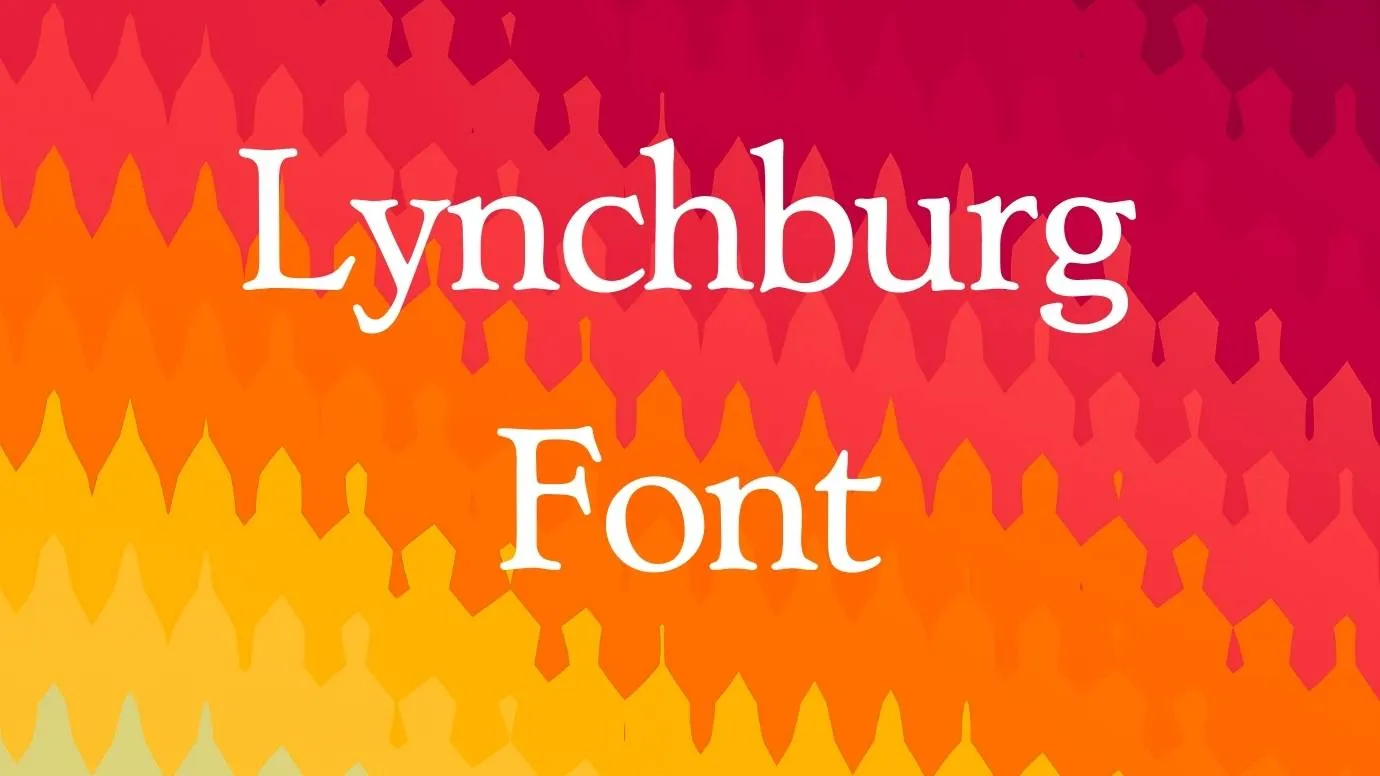
Font Introduction
Lynchburg Font Family is a modern and attractive typeface that is known by the name Lynchburg Font. This classic typeface belongs to the Slab Serif typeface. Its amazing Swirls and high Strokes make this font family attractive for different designs. The main developer of this typeface was Jack Daniel. This stunning typeface has shorts ascenders and large descenders. Its keen features make it perfect for different designs.
Because its more popular and classic features that were added by the font developers make this typeface best than other fonts. It is best used in CSS and SVG. This amazing typeface has almost all basic characters, It also contains some famous special characters. You can also use Paul Slab Font which is similar to this awesome typeface.
Features of Lynchburg Font
- This tremendous typeface is best for use in almost all of your design projects. You can use it for official branding, thumbnails, and so on.
- Many manufacturers used this typeface for game development, infographics, and so on. It is best for use in different fashion magazines, and newspapers.
- If you want to achieve success in your projects then don’t waste your time and used this typeface in your projects, after using this typeface you will get massive fame in your projects. The results of this font family are best and fascinating.
Name | Lynchburg Font |
Type | Slab Serif |
Designer | Jack Daniel |
Faqs
Where we can use Lynchburg Font?
You can use this cozy typeface for many projects like hats, t-shirts, official branding, thumbnails, and so on.
Who is the designer of Lynchburg Font?
This tremendous typeface was developed by Jack Daniel. it belongs to the Slab Serif typeface.
What font is alternative to Lynchburg Font?
Many fonts are similar to this typeface because it is an attractive and popular font that is used in various designs places. Fancy Pants NF Font, Courier Font, and some fonts are the most alternative to this typeface